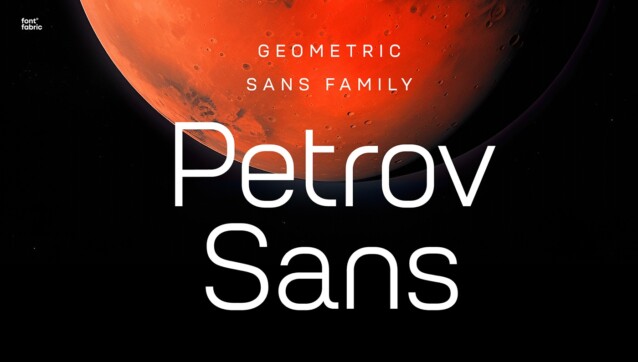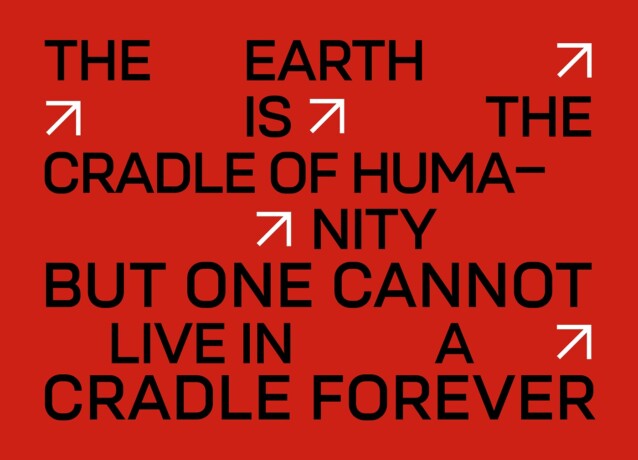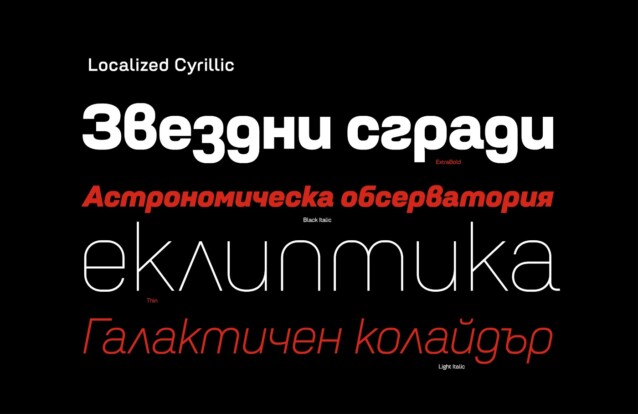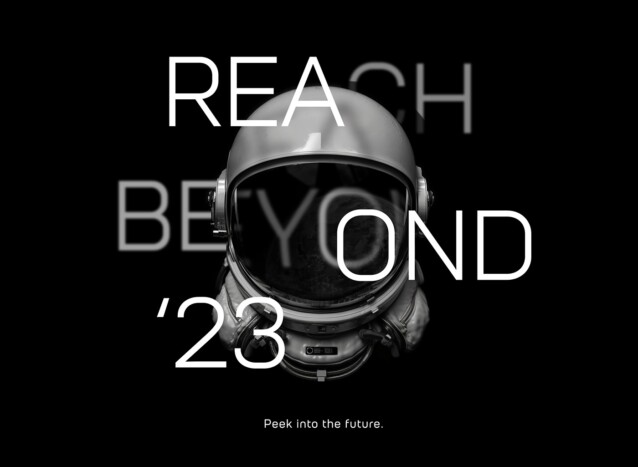
Petrov Sans Font Family
Petrov Sans Font
Petrov Sans Font is a functional sans serif that includes open character openings, a uniform distribution of white and black, and excellent readability. Featuring 9 uprights and 9 italics, Petrov Sans is a versatile typeface that will elevate any design project. This font is good for logo design, Social media, Movie Titles, Books Titles, a short text even a long text letter and good for your secondary text font with script or serif.